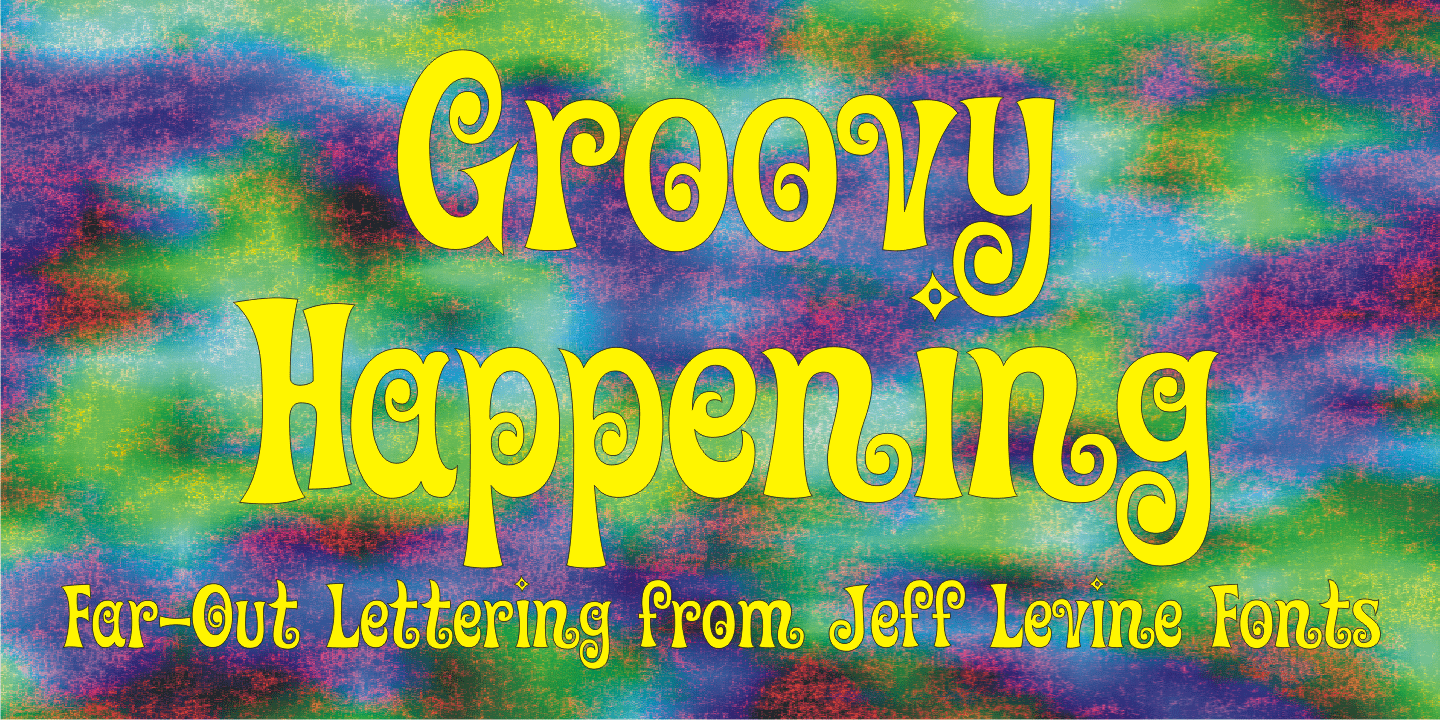
Groovy Happening
The long-awaited extension of the freeware font "Action Is", this Sixties-inspired typeface has an added lower case and additional glyphs including accented characters.